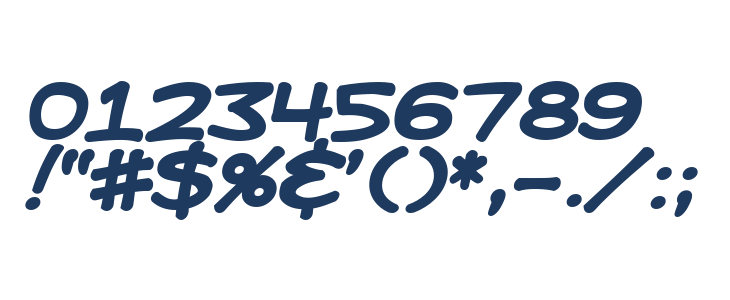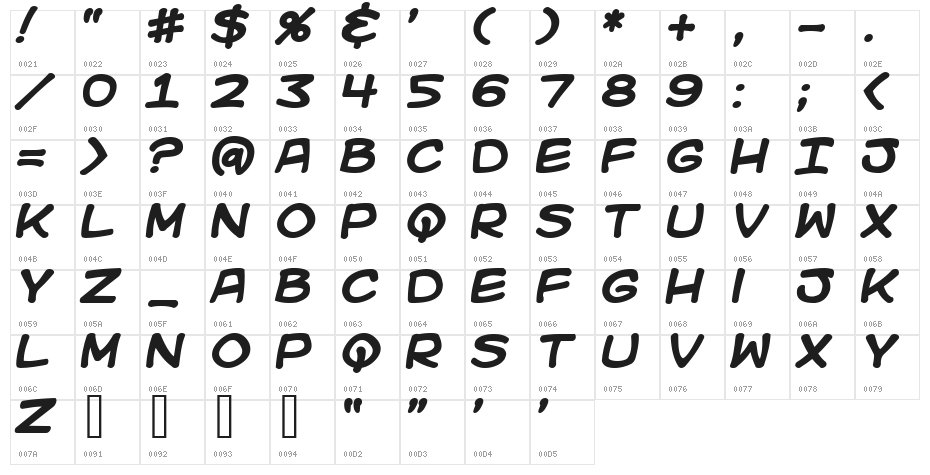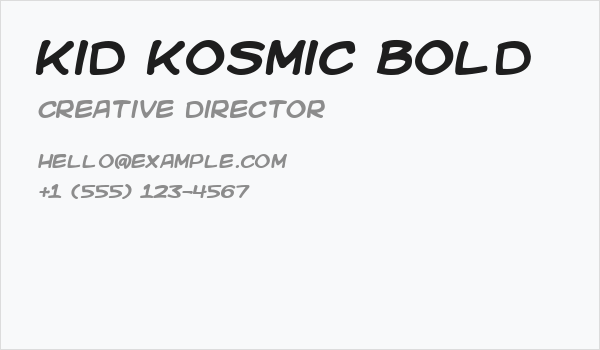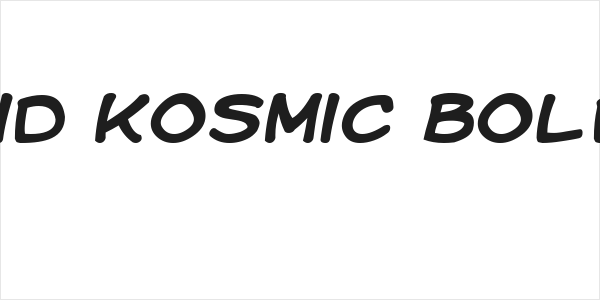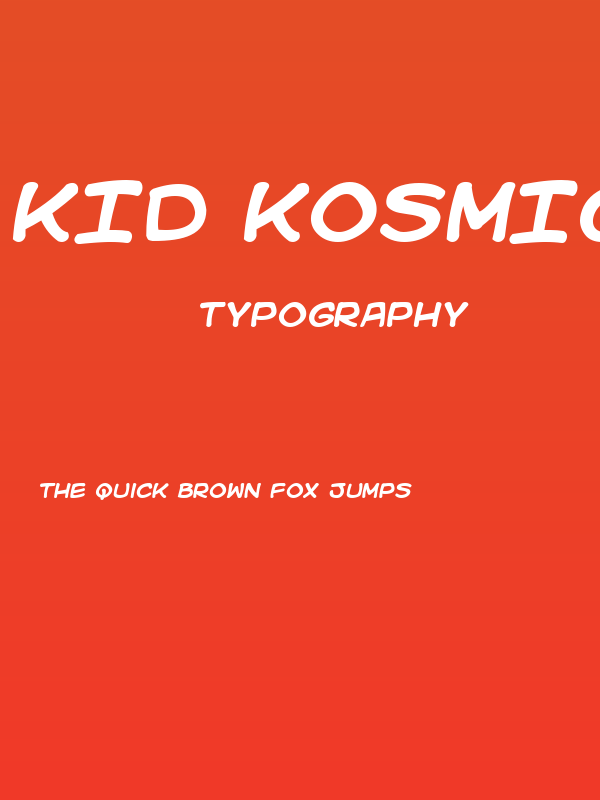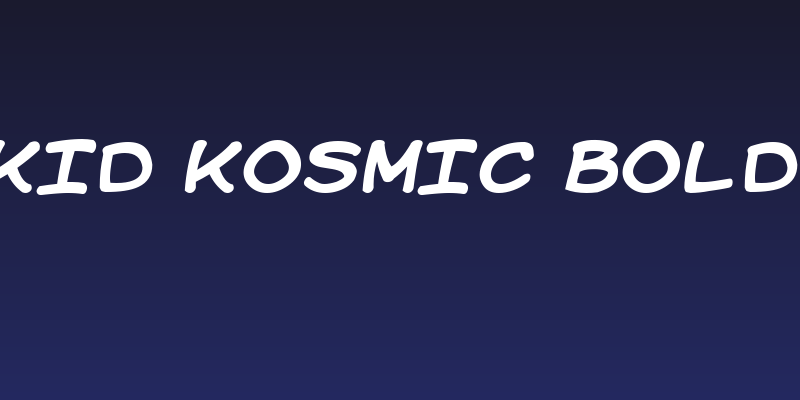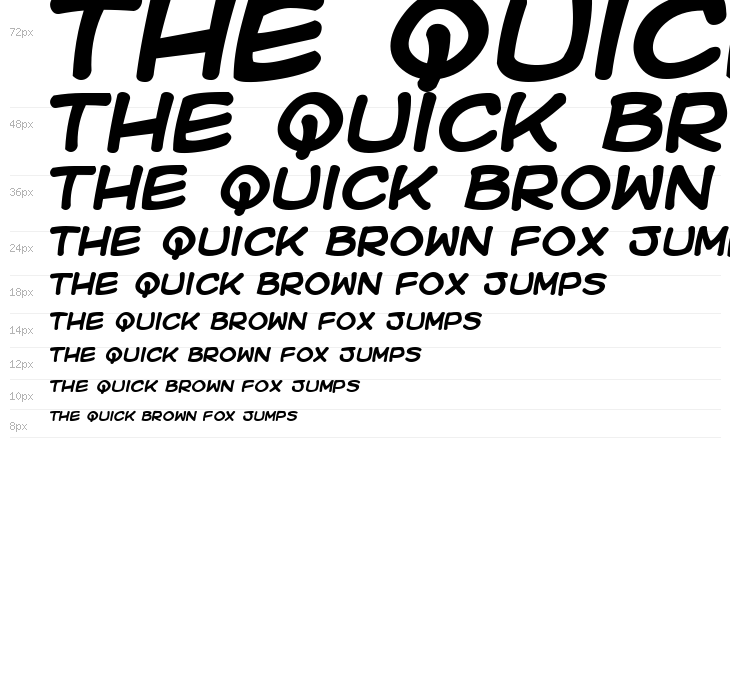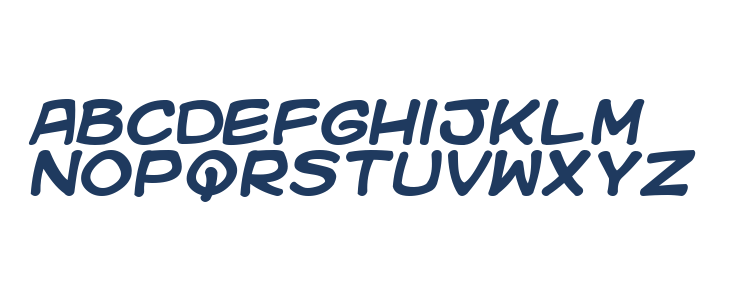
Kid Kosmic Bold Font
Kid Kosmic Bold Description
This font features a playful and bold style with rounded edges and a slightly slanted orientation, giving it a dynamic and energetic appearance. The characters are thick and uniform, providing a strong presence on the page. The uppercase and lowercase letters maintain a consistent style, with a slight variation in the curvature of certain letters, adding to its whimsical charm. The numbers and special characters are equally bold and rounded, ensuring readability and maintaining the font's cohesive look. This font is ideal for projects that require a fun and engaging aesthetic.
| Proposed Projects | Ideal for children's books, comic strips, playful branding, and eye-catching headlines. |